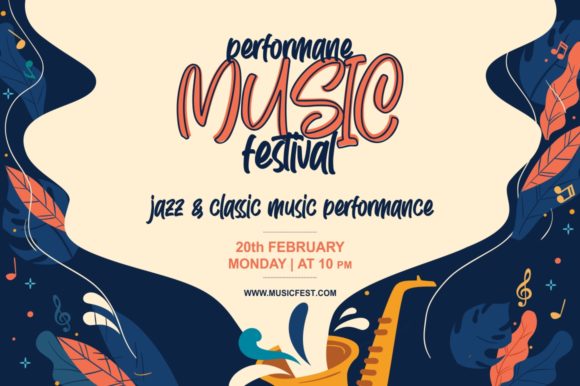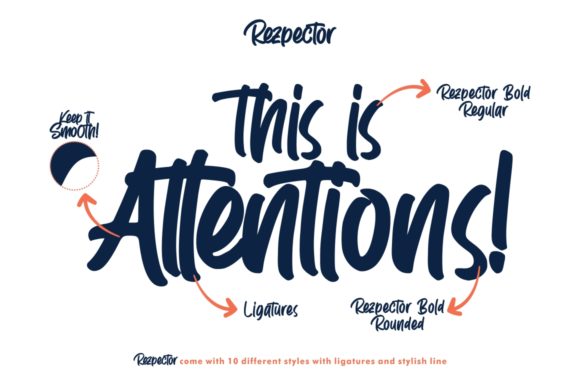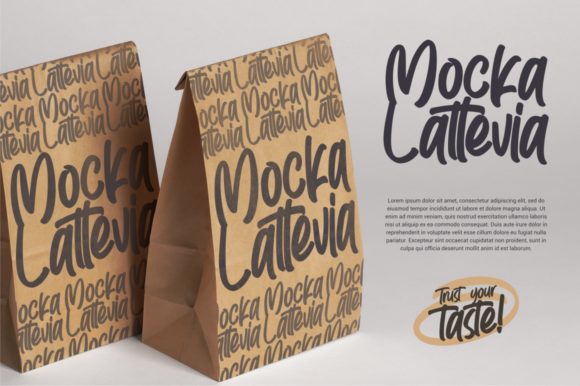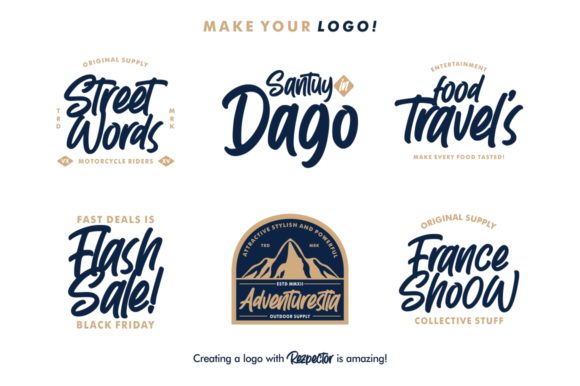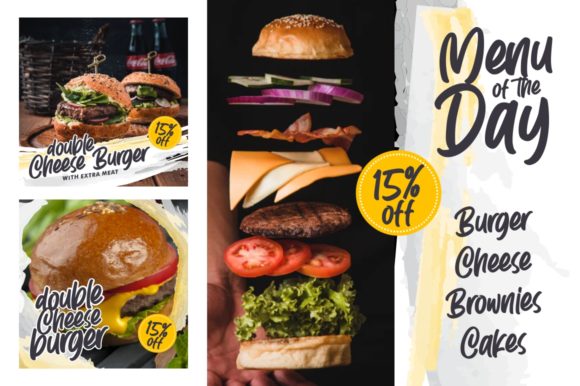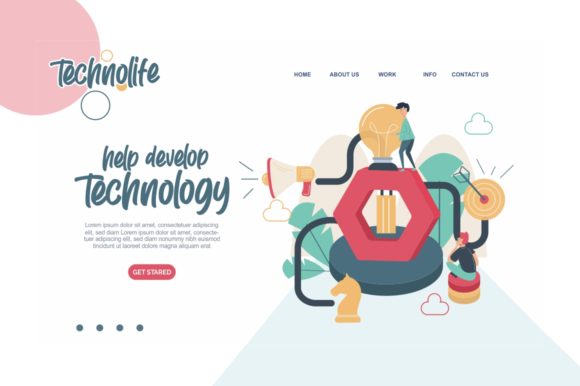
Introduction to Rezpector Font
Have you ever stared at a blank canvas, struggling to find the perfect font to bring your creative project to life? You’ve searched high and low for the perfect combination of style and sophistication, only to end up with a font that’s either too bland or too over-the-top. Well, we’ve got some exciting news for you: meet the Rezpector Font, a gorgeous and bold display font that’s about to become your new go-to design resource.
With its confident charm and high-quality design, the Rezpector Font is the perfect addition to any creative project. Whether you’re working on a logo, a poster, or a website, this font is sure to make a statement. Plus, with its transparent background, you can easily overlay it on top of any image or design element, giving you endless possibilities for creative expression.
Key Features of Rezpector Font
- High-quality design resource suitable for creative projects with a transparent background.
- Rezpector Font offers a unique, modern aesthetic, making it an ideal choice for designers seeking a fresh look.
- Supports a wide range of languages, ensuring versatility across various creative projects.
Honest Review: Rezpector Font
As a designer, I’m always on the lookout for high-quality design resources to elevate my creative projects. The Rezpector Font has been a recent addition to my toolkit, and I’m excited to share my honest review with you.
What works well: ✨ The Rezpector Font boasts a sleek and modern aesthetic, perfect for contemporary designs. The font is highly versatile and can be used for a wide range of creative projects, from digital designs to print materials. Additionally, the font is available for free download, making it an excellent choice for designers on a budget.
What doesn’t work well: ⚠️ While the Rezpector Font is free, it lacks a transparent background option, which can be a limitation for designers who require this feature. Additionally, the font may not be suitable for projects that require a high level of customization.
- Highly versatile and modern aesthetic
- Excellent choice for contemporary designs
Overall, I’m impressed with the Rezpector Font’s design and functionality. While it has some limitations, its benefits far outweigh its drawbacks. I would highly recommend this font to designers looking for a high-quality design resource for their creative projects.
Tips for Getting the Most Out of Rezpector Font
For optimal results, use Rezpector Font on a high-quality design resource, such as a PNG file with a transparent background. Experiment with different font sizes, colors, and styles to find the perfect look for your creative project. Consider combining Rezpector Font with other design elements, such as images or shapes, to create a visually appealing design.
Rezpector Font is perfect for a variety of design projects, including logos, brochures, and social media graphics. It’s also a great choice for creating a consistent brand identity across multiple platforms. With its high-quality design and transparent background, Rezpector Font is a valuable design resource for any creative project.
Q: Is the Rezpector Font suitable for large-scale designs or print materials?
Yes, the Rezpector Font is designed to be highly legible and versatile, making it suitable for a wide range of design applications, including large-scale designs and print materials. The font’s high quality and clear typography ensure that it will remain readable and visually appealing even at larger sizes or in print formats.